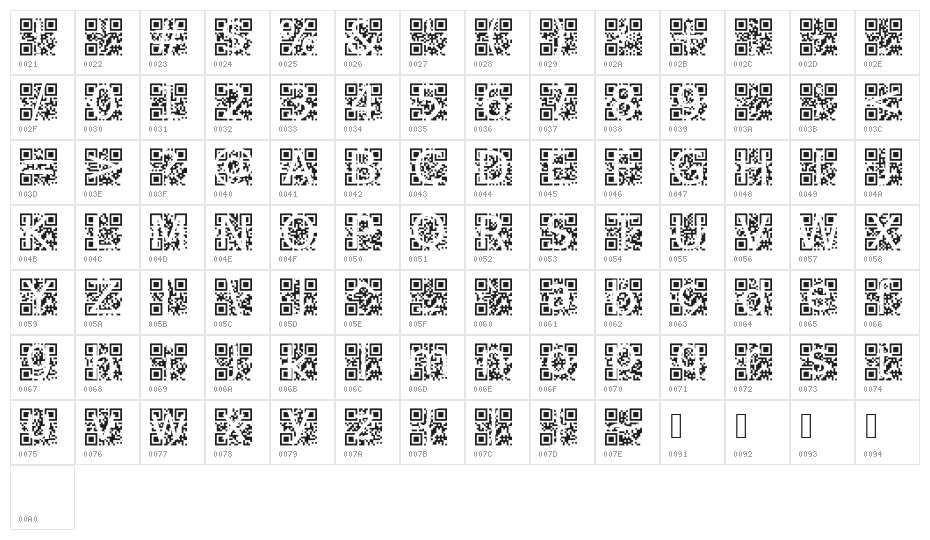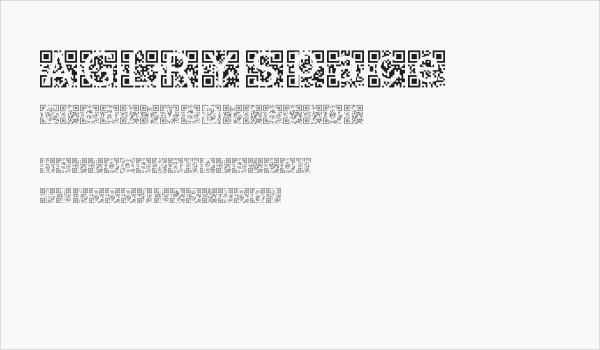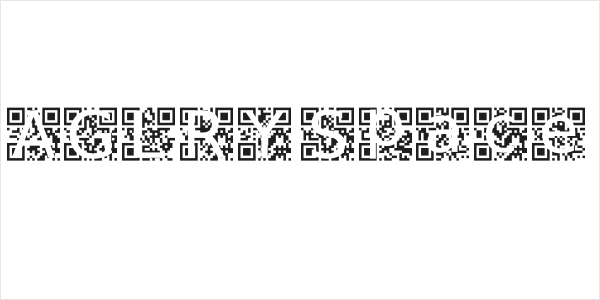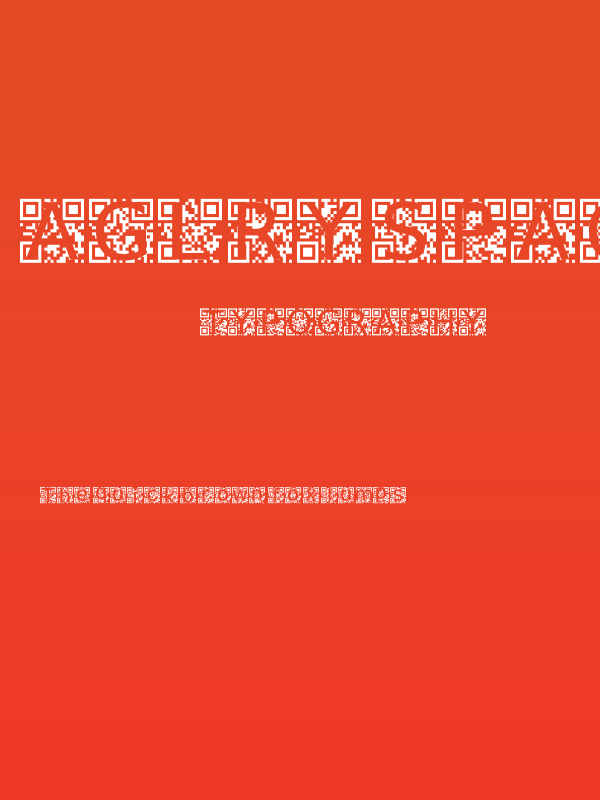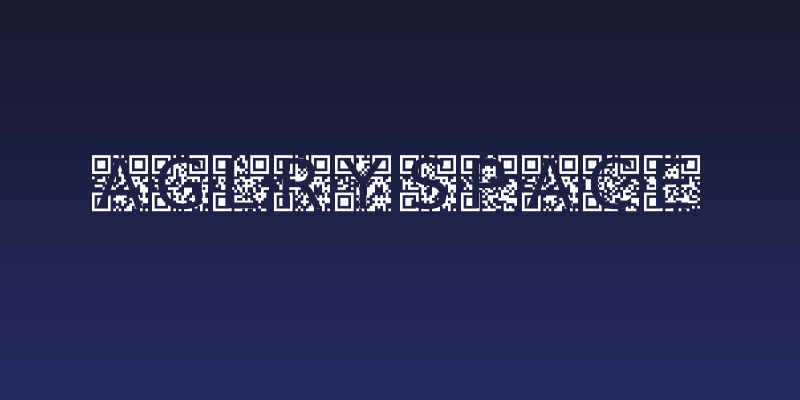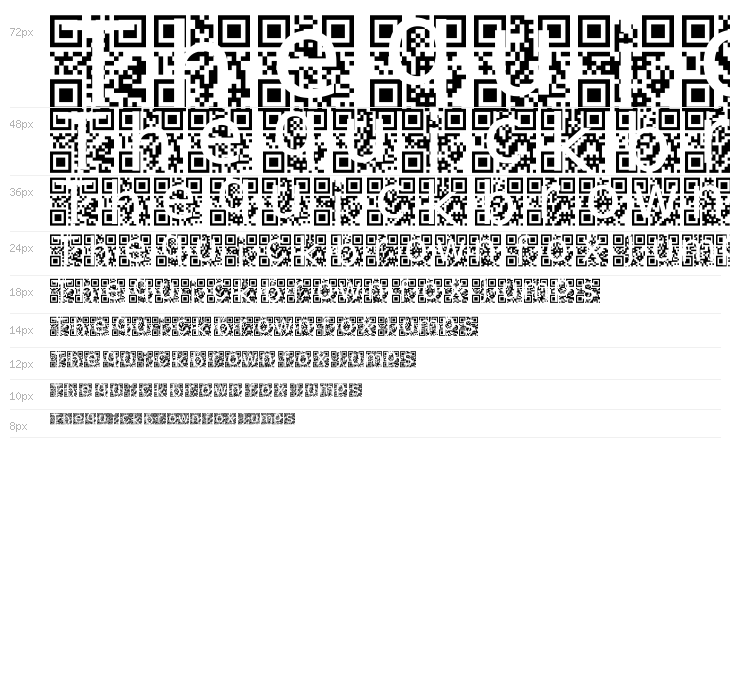
AGLRY Space Font
AGLRY Space Description
This font features a unique and intricate design, incorporating a pixelated, digital aesthetic reminiscent of QR codes. Each character is composed of a grid-like pattern, creating a visually complex and modern appearance. The font maintains a consistent structure across all characters, with a bold and striking presence. Its geometric style is both futuristic and decorative, making it suitable for projects that require a distinct and eye-catching typeface. The characters are evenly spaced, ensuring readability despite the intricate design. This font is ideal for digital-themed projects, tech-related branding, or any creative work that seeks to incorporate a modern, digital flair.
| Use Case | Logos, Headlines, Digital Art |
| Proposed Projects | Ideal for tech branding, digital art projects, futuristic designs, and creative digital marketing materials. |